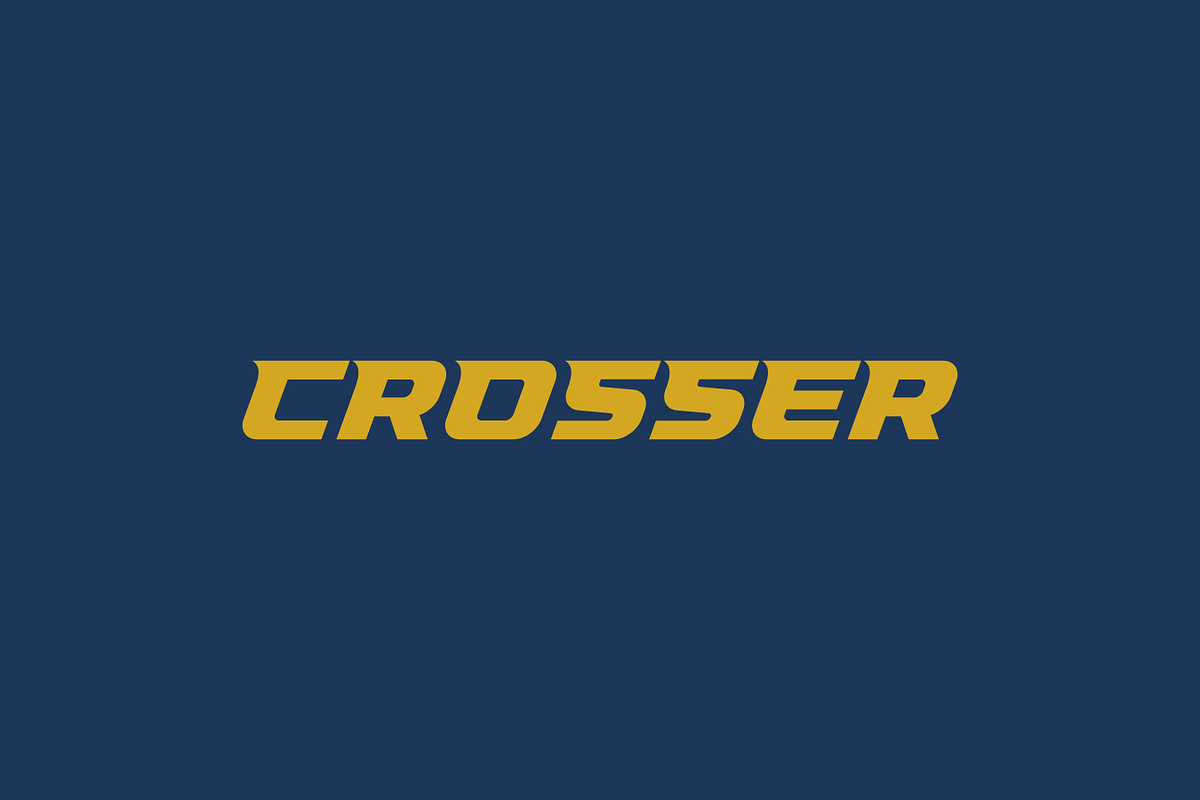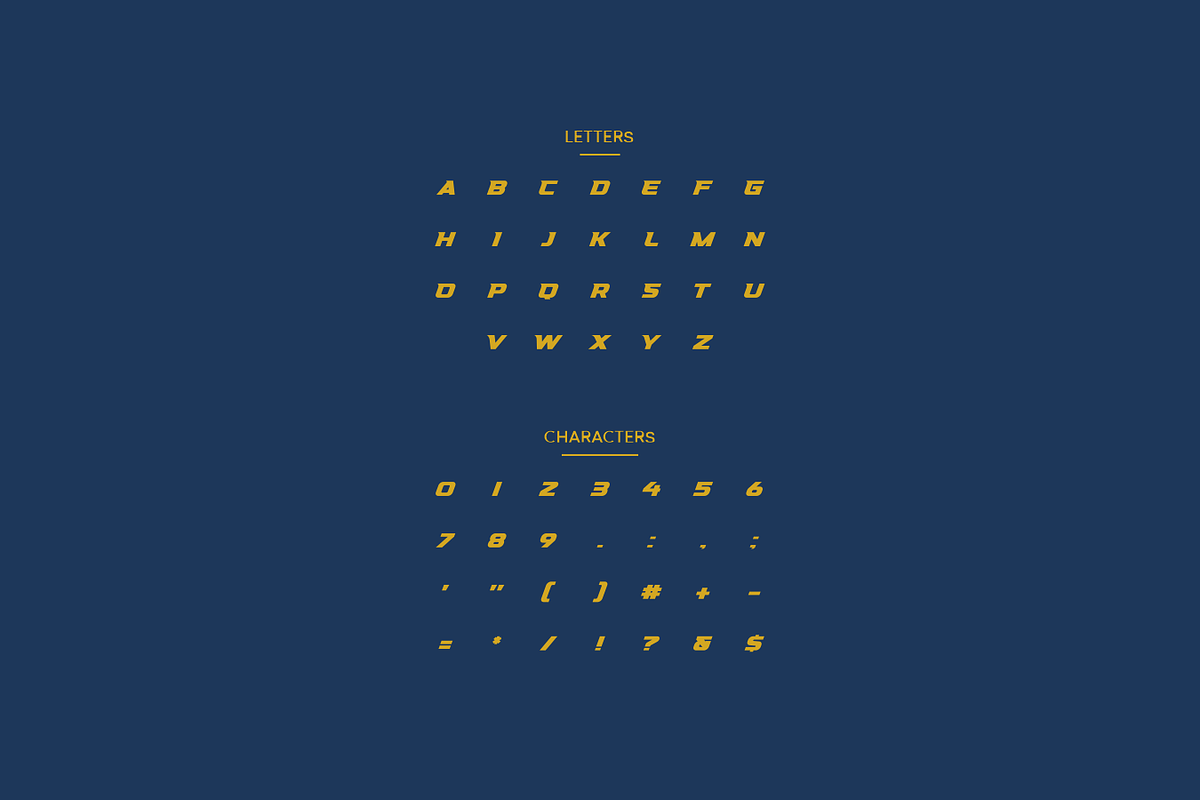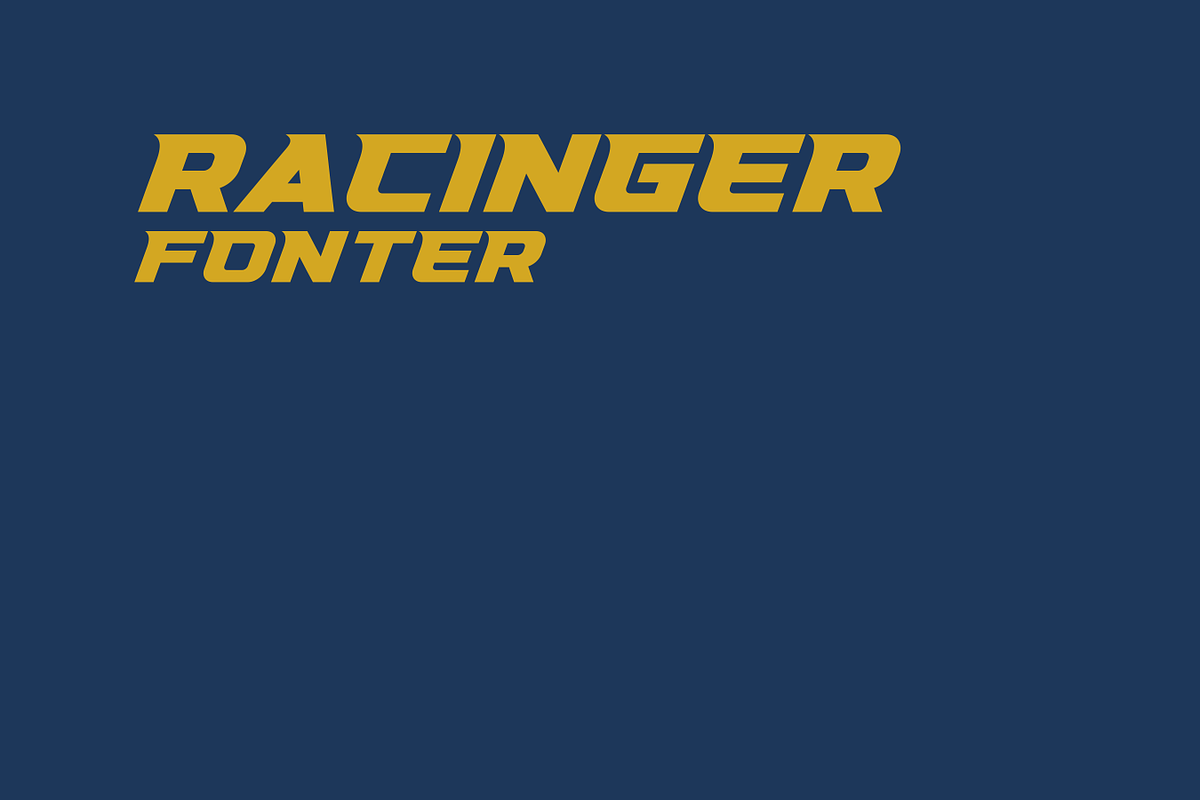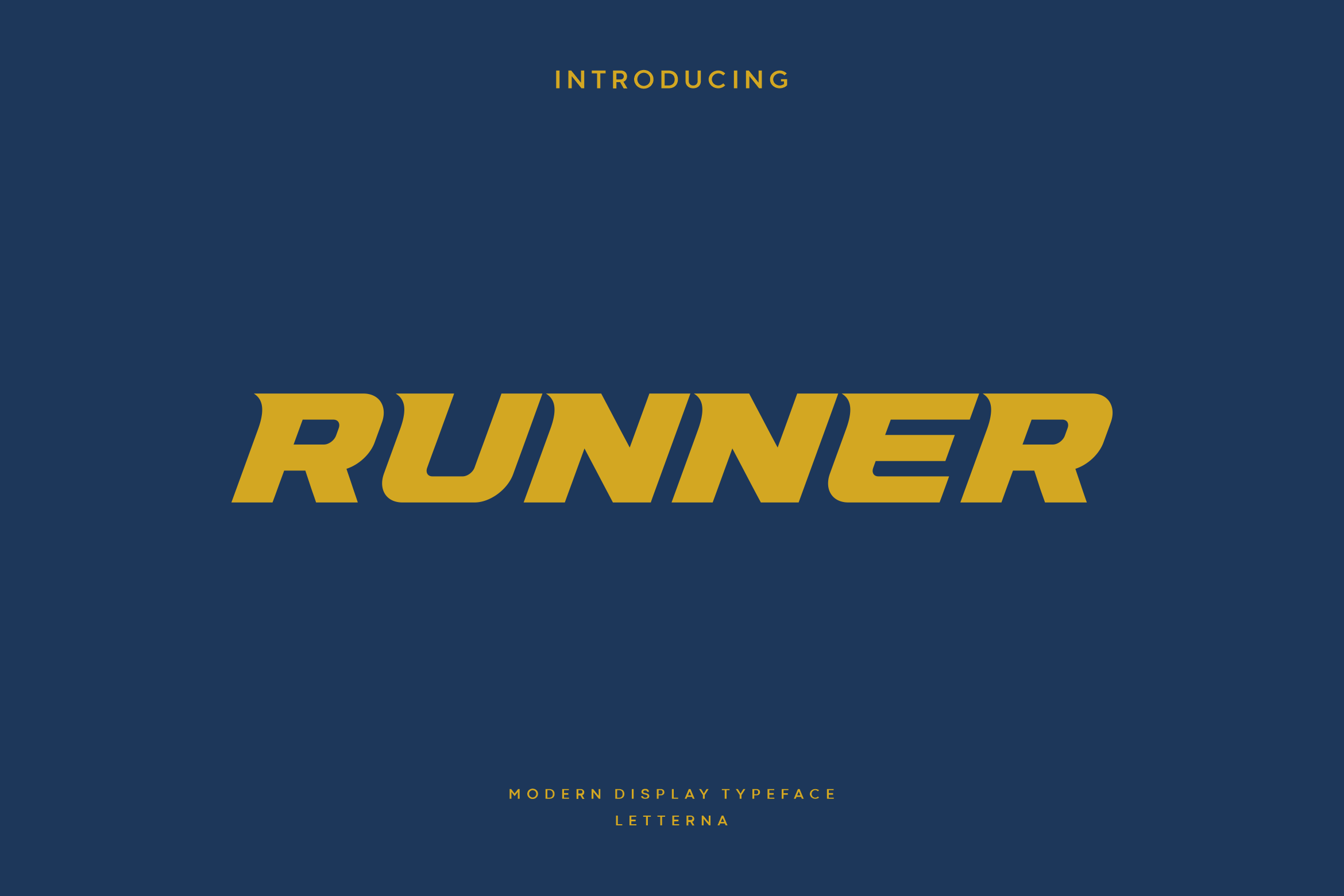
Runner - Modern Sport Typeface
Runner an awesome sports font with wide italic fonts, modern cutouts, and dynamic slant. Ideal for fast car racing sports titles, running matches, cycling, automotive game logos and monograms or other modern dynamic text. Runner compare favorably with legibility and size, creating the effect of power and speed. Designed as a fast and dynamic font, but with a slightly different font design, check it out and grab it right away.
- Punctuation & Number